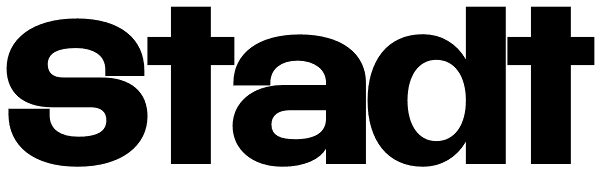
Stadt
Stadt seamlessly combines typographic aesthetics from the 1950’s with a contemporary twist. This workhorse is meant to be set tightly, but looks equally smart with some extra space as well. We loaded Stadt with alternate characters and ligatures...